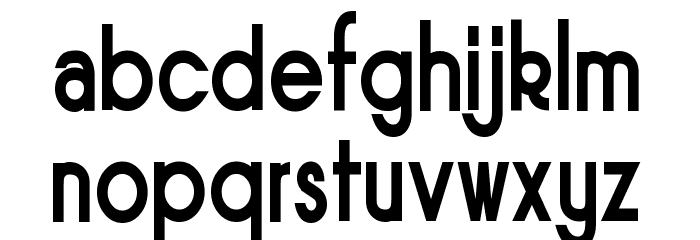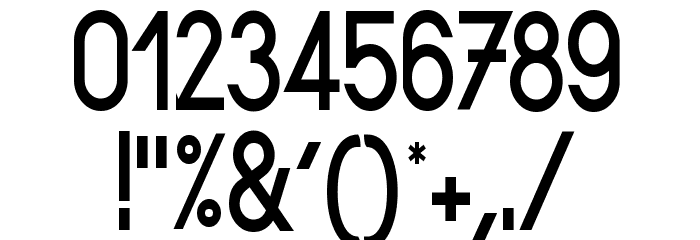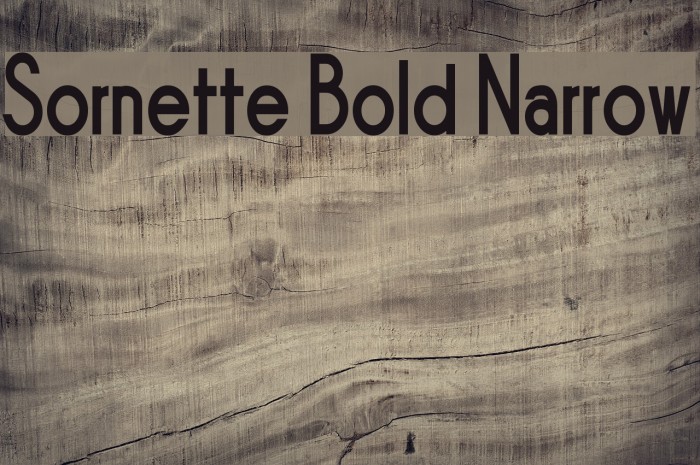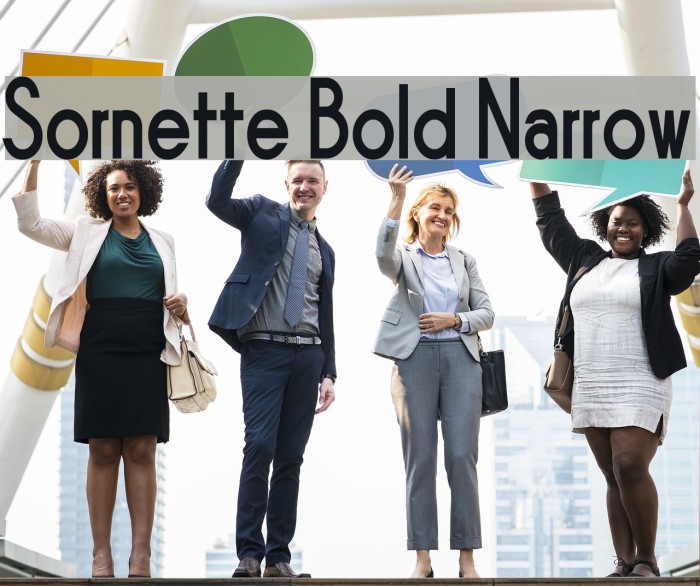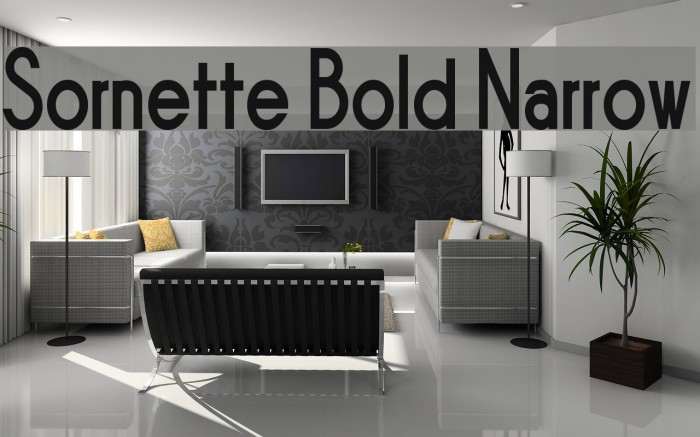
Sornette Bold Narrow Font
This font features a bold and narrow design, characterized by clean, geometric lines and a modern aesthetic. The uppercase letters are tall and imposing, while the lowercase letters maintain a consistent height that complements the overall structure. The numerals are clear and easily distinguishable, making them suitable for various applications. Special characters are designed with the same boldness, ensuring uniformity across all glyphs. The font's narrow width allows for efficient use of space, making it ideal for headlines and titles where impact is essential. Its modern style is versatile, fitting well in both digital and print media.
A bold, narrow font with a modern, geometric design.
- Proposed Projects: Ideal for headlines, posters, branding, and digital media where a strong, modern impact is desired.